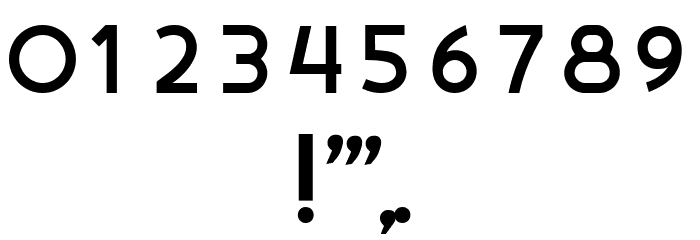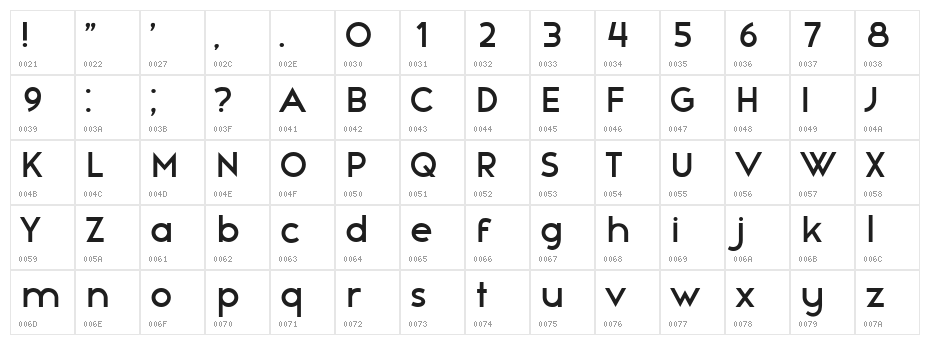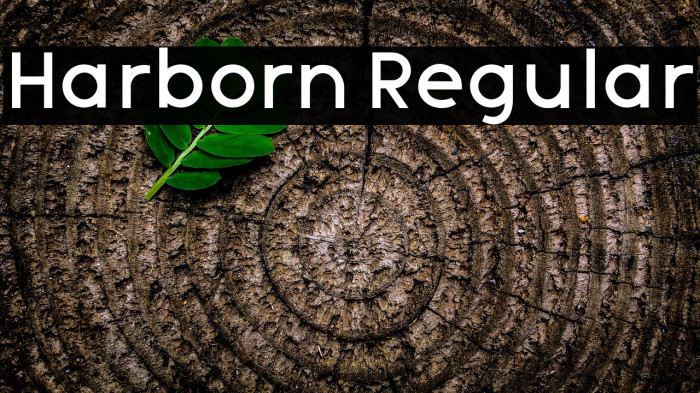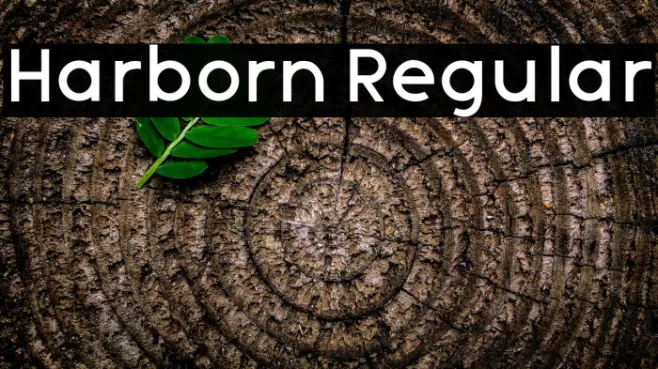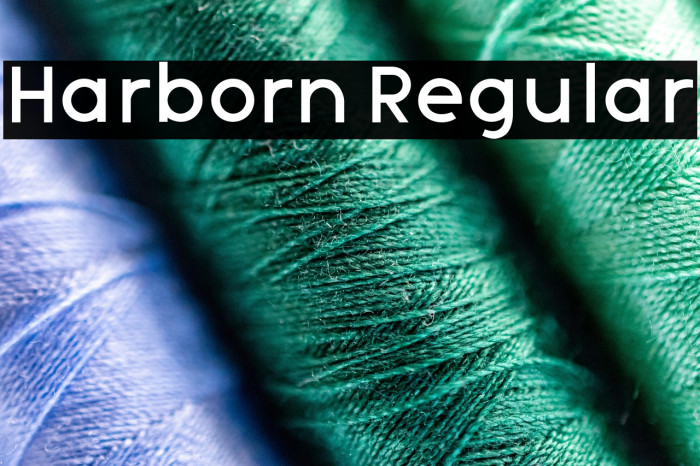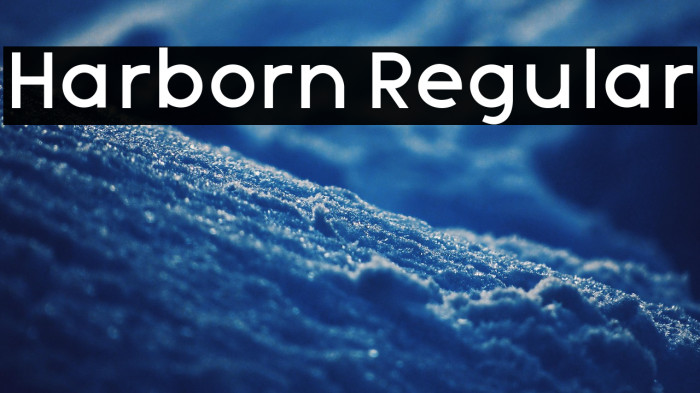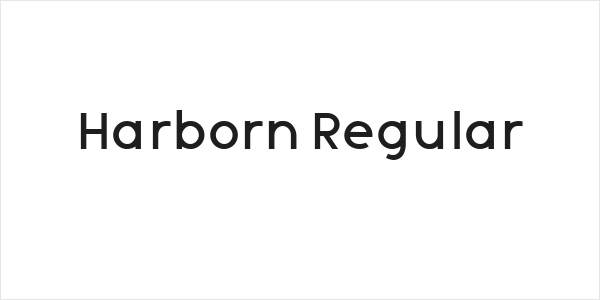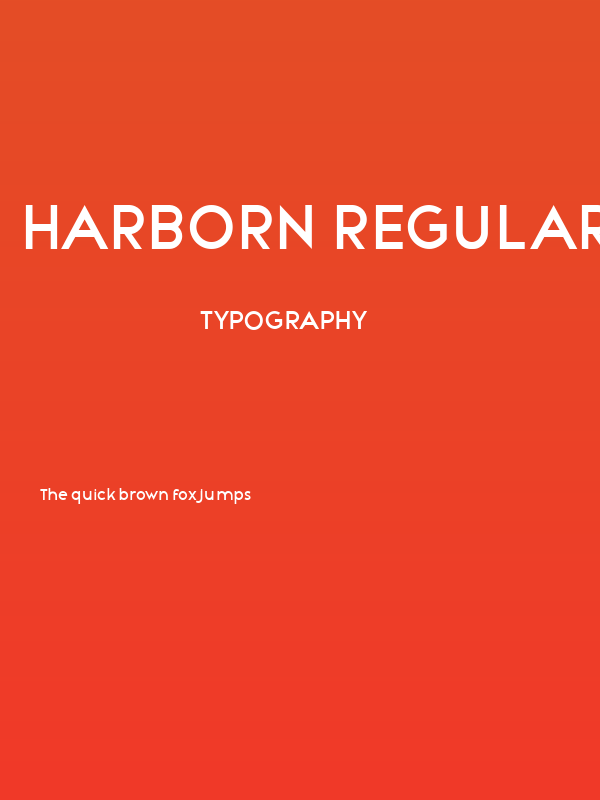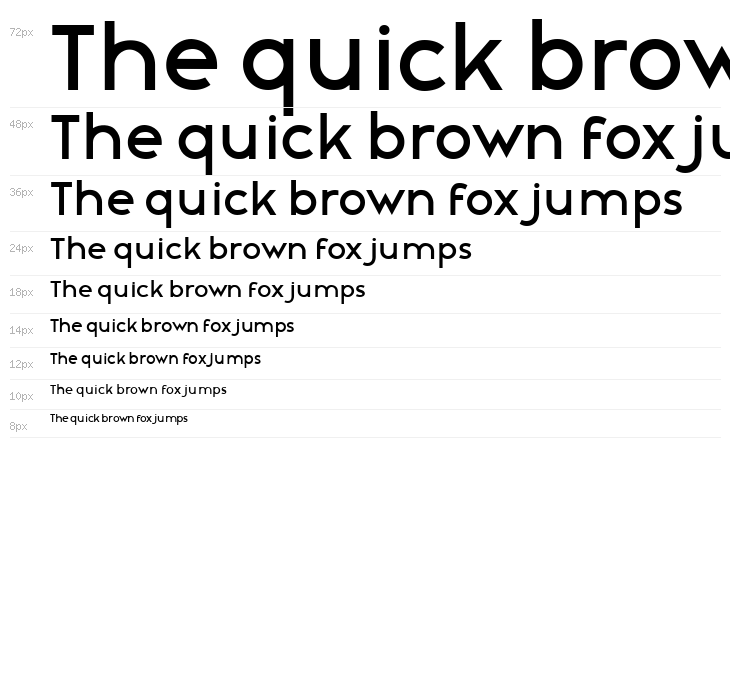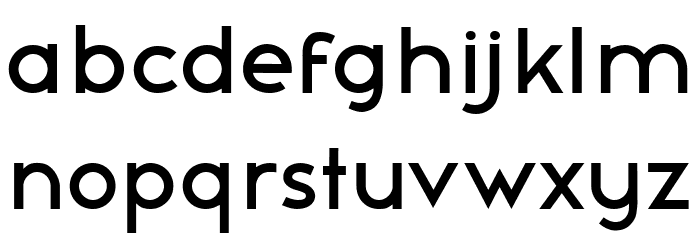
Harborn Regular Font
Harborn Regular Description
This font features a clean and modern sans-serif style with geometric influences. The characters are well-proportioned, offering a balanced and harmonious appearance. The uppercase letters are bold and assertive, while the lowercase letters maintain a friendly and approachable feel. The numerals are clear and easily readable, making them suitable for various applications. Special characters are designed to complement the overall aesthetic, ensuring consistency across all glyphs. The font's simplicity and elegance make it versatile for both digital and print media.
| Proposed Projects | Ideal for branding, advertising, web design, and editorial layouts. |